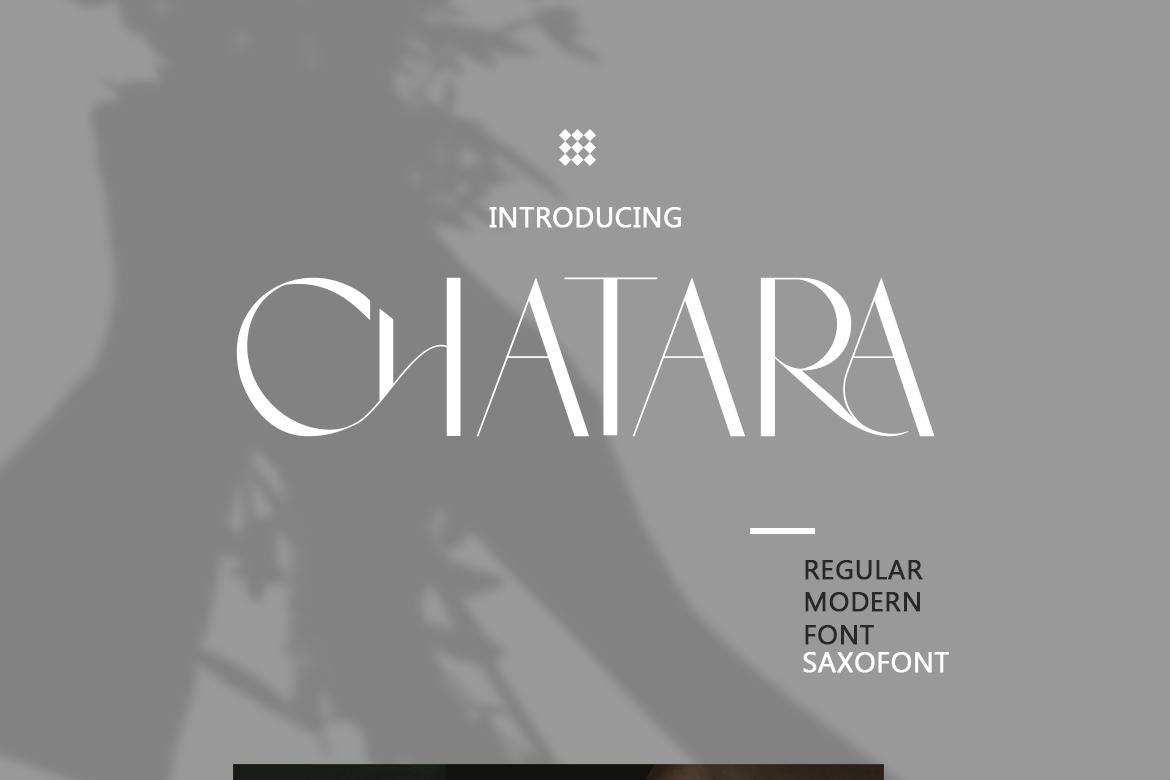
Chatara - Regular Modern Font
Chatara is an elegant and charming sans serif font. Fall in love with it and bring your projects to the highest levels! This font is PUA encoded which means you can access all of the glyphs and swashes with ease!